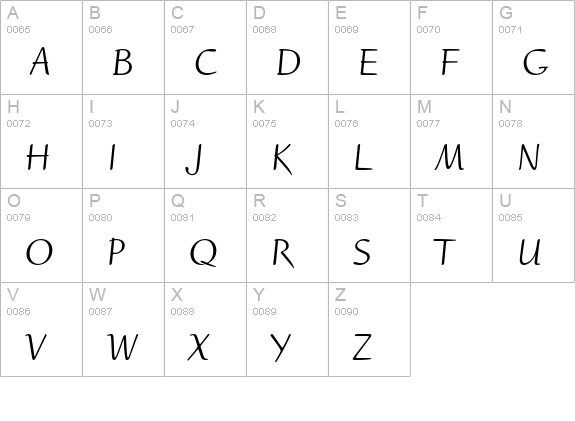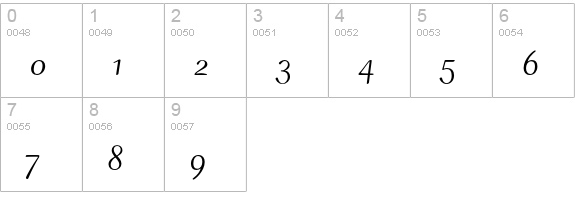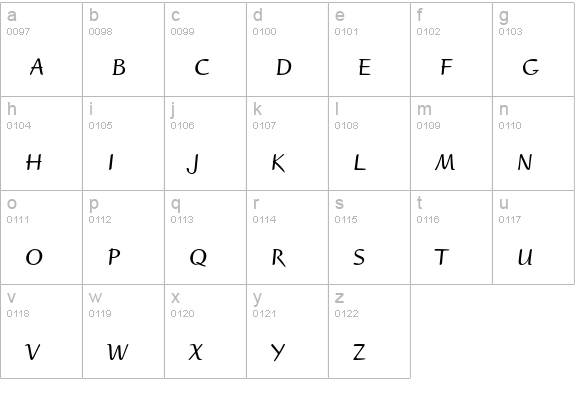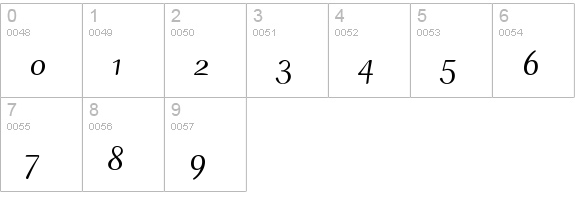
Ruzicka Freehand LH Roman Small Caps & Oldstyle Figures Font Details
Ruzicka Freehand LH Roman Small Caps & Oldstyle Figures font is a beautifully crafted typeface that exudes elegance and sophistication. The intricate details of the freehand design give it a unique and artistic flair, making it perfect for projects that require a touch of creativity. The small caps and oldstyle figures add to the overall charm of the font, making it versatile and suitable for a wide range of design applications. This font is freely available to download at FontsMarket.com, making it easily accessible to designers and creatives looking to add a special touch to their projects. Whether you're working on a logo, branding materials, or a print design, Ruzicka Freehand LH Roman Small Caps & Oldstyle Figures font is sure to elevate your work and leave a lasting impression.